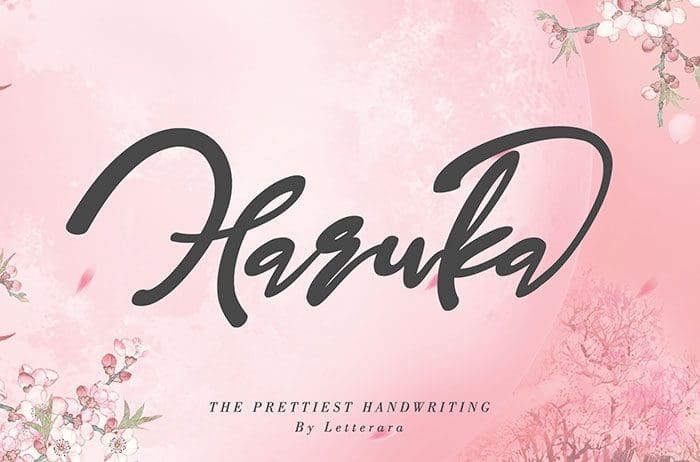
Free Haruka Handwritten Font
Haruka Handwritten Font
Free Haruka handwritten font is a Japanese Kimono inspired typeface. It has a powerful feel, with a bold exterior. Created this font by Thomas Aradea. You can also search more freeĀ Handwritten Fonts.